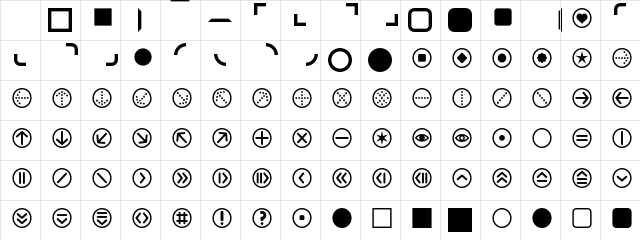
Complete ButtonBonus CirclePositive glyph index. Displaying only characters natively supported by ButtonBonus CirclePositive font.
ButtonBonus is a composed and adaptable typeface that performs quietly and consistently across a wide range of design contexts.